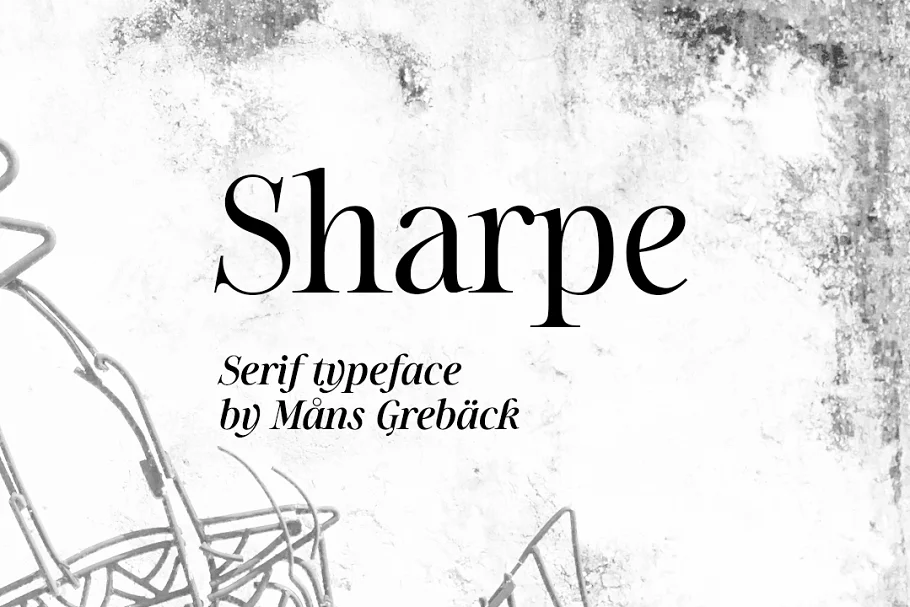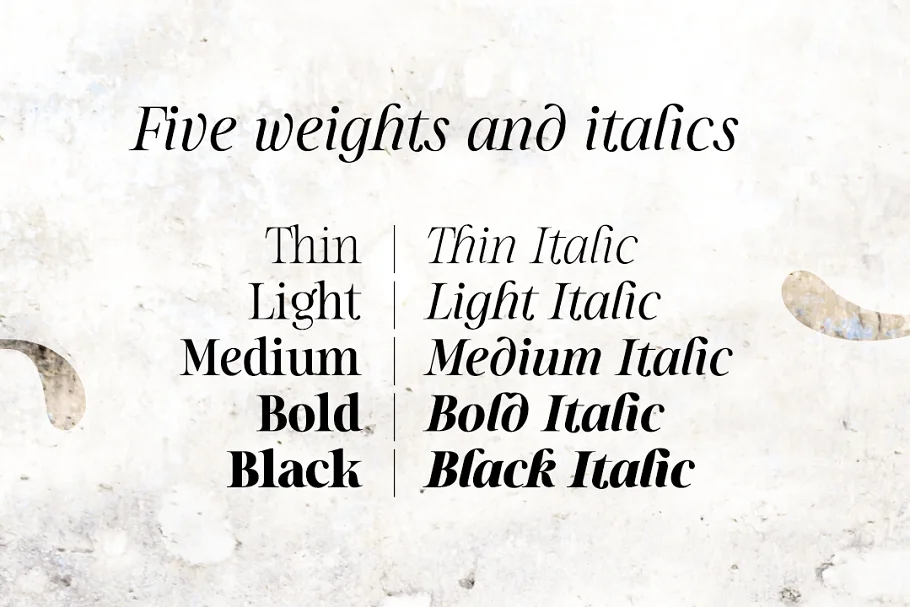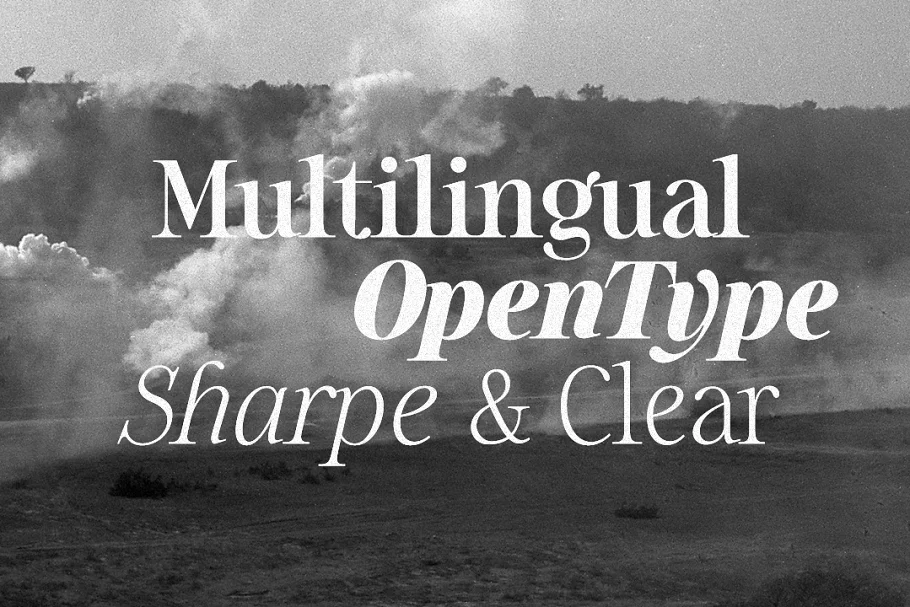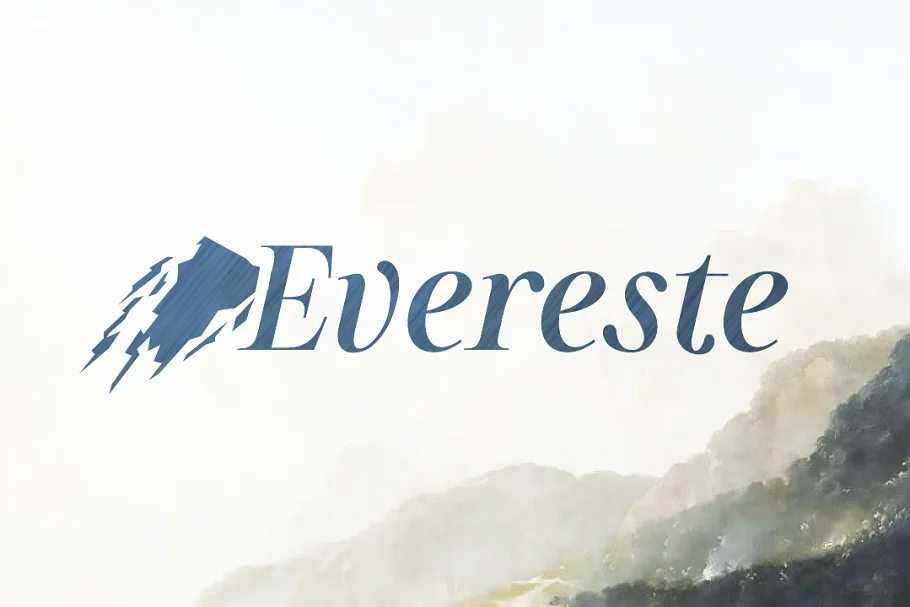
About the Sharpe 10 Style HQ Serif Font
Sharpe is a stylish serif typeface family. The type has been drawn by Måns Grebäck during 2018 and 2019. It is clear, sharp, and has brave, lively letterforms but with a conservative backbone.
The five font weights balance beautifully in contrast to each other, and each weight has an italic equivalent, totaling in ten styles from Thin to Black. Each style contains ligatures and support for a wide range of languages.